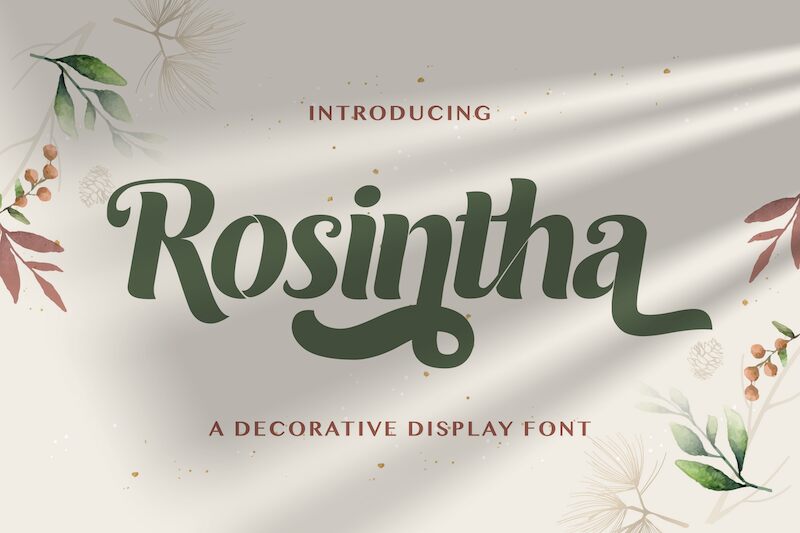
Decorative in its own way, the Rosintha font developed by StringLabs Creative Studio is a retro display typeface that does wonders for adding character to any design. Its curves are bold and entrancing, exaggerated strokes and playful serifs give it an undeniably strong presence - which makes it perfect for catchy headlines or logos.
This free decorative font could be used in your personal projects - simply download it and let some vintage charm into your designs! Regardless of whether you’re working on posters, branding materials or social media graphics – with Rosintha they will always look eye-catching. So why not take advantage of its nostalgic style to make those creative endeavors stand out from the rest?
Rosintha